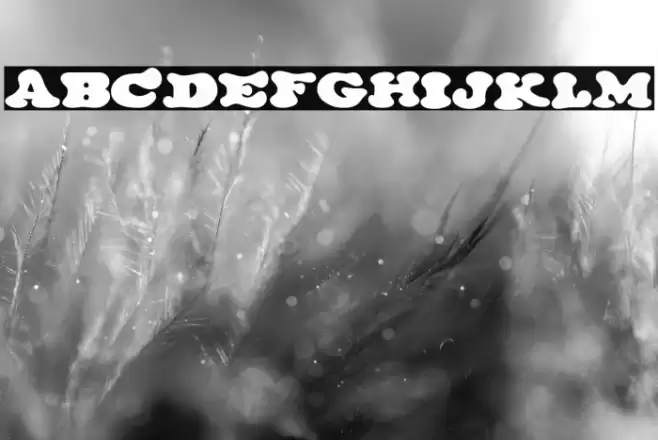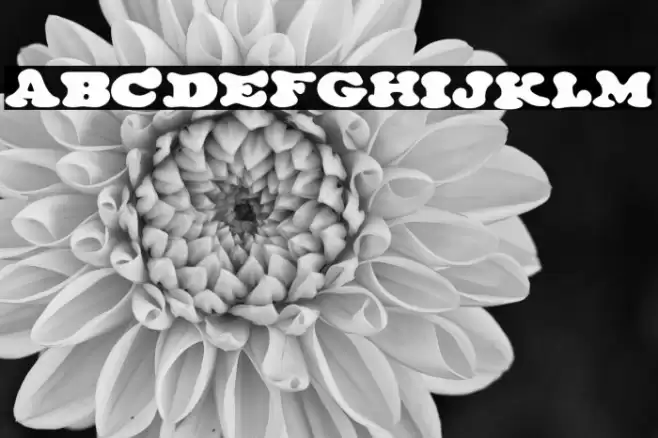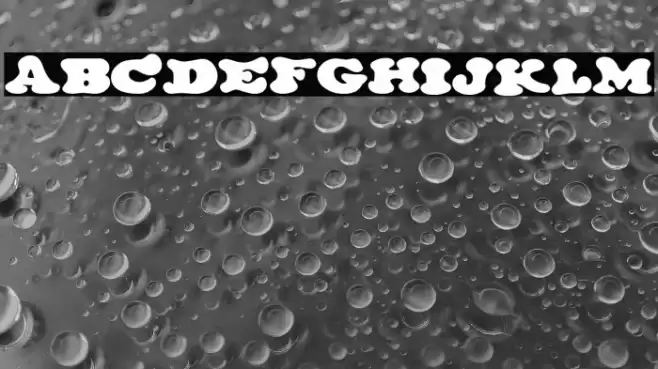
The Cream Shop Font
The Cream Shop Description
This playful and bold font features thick, rounded characters that exude a whimsical and fun vibe. The letters are heavily weighted with a bubbly appearance, making them stand out with a strong presence. The font's design is reminiscent of playful, cartoonish styles, with each character having a unique, slightly irregular shape that adds to its charm. The numbers and special characters maintain the same bold and rounded aesthetic, ensuring consistency throughout. This font is ideal for projects that require a touch of humor and creativity, such as children's books, playful branding, or eye-catching headlines.
A bold, playful font with thick, rounded characters and a whimsical style from Uncategorized fonts.
- Font: The Cream Shop
- Proposed Projects: Ideal for children's books, playful branding, eye-catching headlines, and creative designs.
- Overall Style: Playful, Whimsical, Cartoonish
- Use Case: Headlines, Logos, Creative Designs